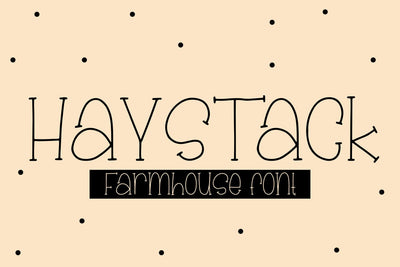
Haystack - A Farmhouse Font
Get ready to add some rustic charm to your designs with Haystack, the Skinny Farmhouse Font that's bursting with personality!
Haystack is here to bring a touch of country flair to your creative projects. This skinny farmhouse font is as versatile as it is fun, capturing the essence of rural living with its slender, handcrafted style. Whether you're designing a cozy farmhouse sign, a rustic wedding invitation, or a charming logo, Haystack has got you covered!
- Haystack - Comes with Uppercase A-Z and lowercase a-z letters, 0-9 numbers, stylistic alternates, limited punctuation and supports Western European Languages